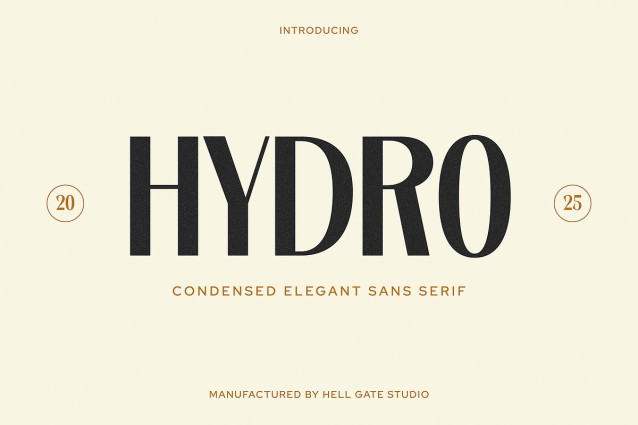
Hydro Font
Hydro Font – This Condensed Sans Serif masterpiece, elegantly condensed, is tailor-made to complement an aesthetic of elegance. Hydro’s fine-tuning allows for effortless editing of text and color, transforming your work into a high-quality rendition that stands out. The Hydro package proudly includes an OTF file, ensuring optimal compatibility and versatility for your designs. Experience the pleasant fusion of elegance and condensed attitude with Hydro font.